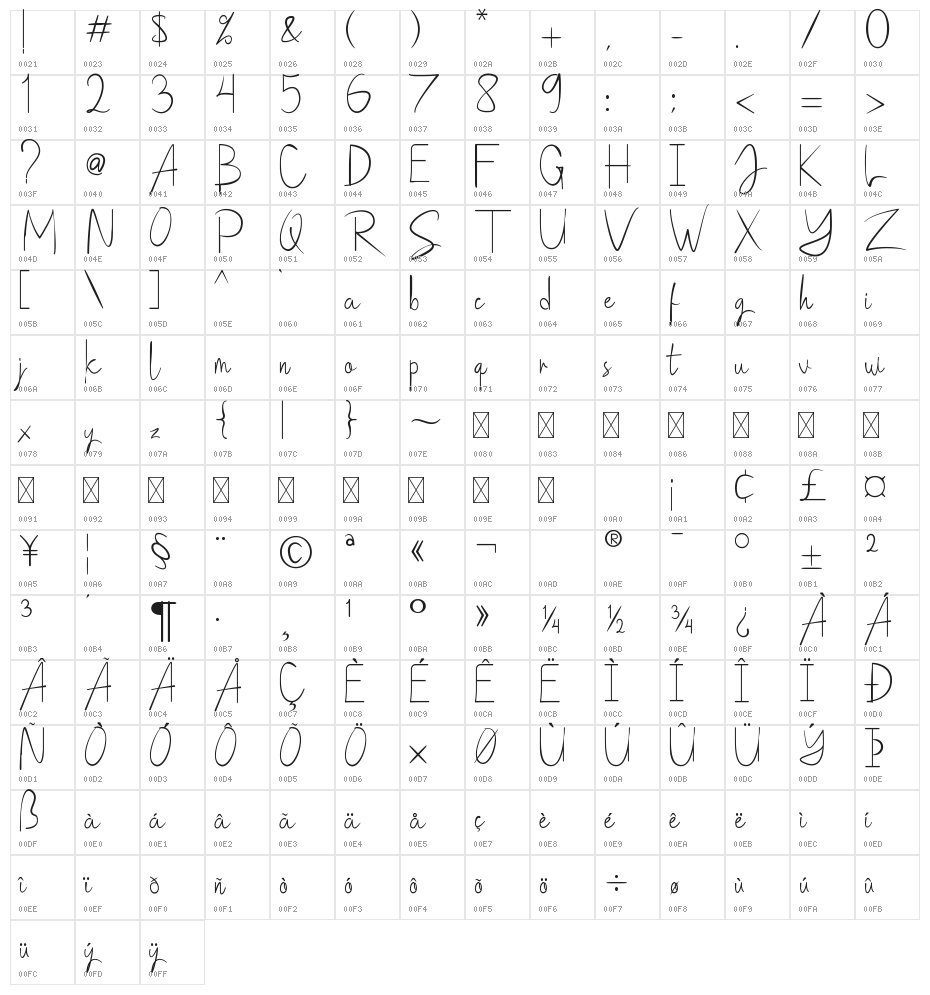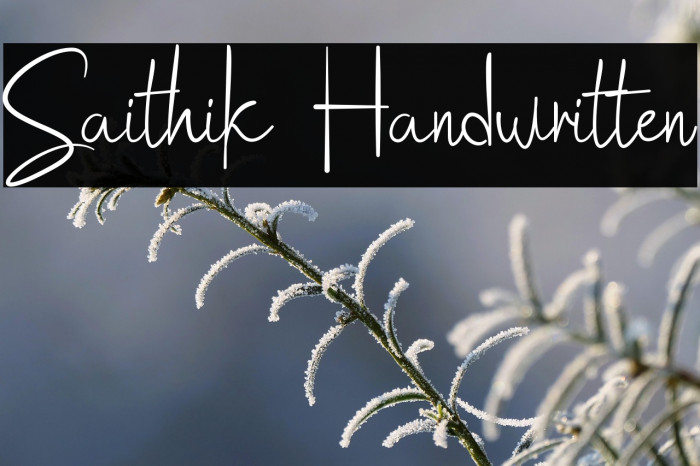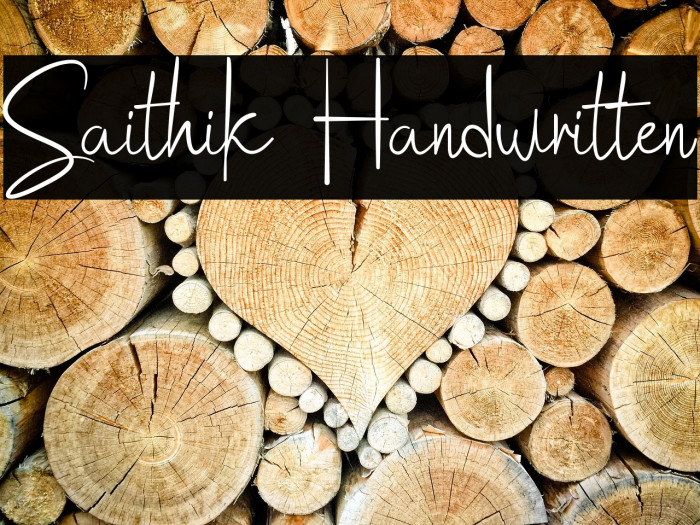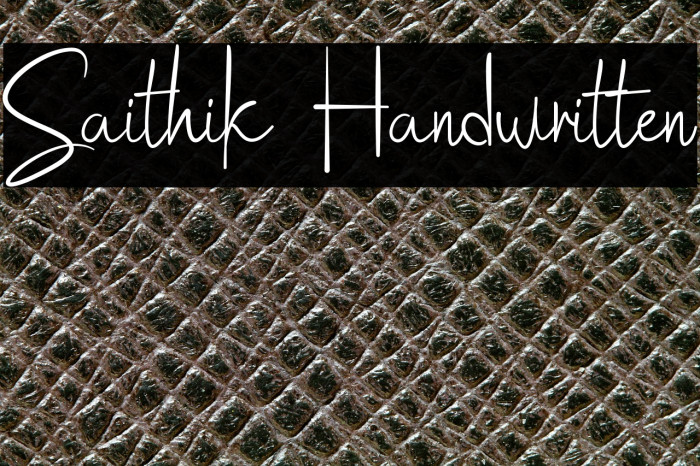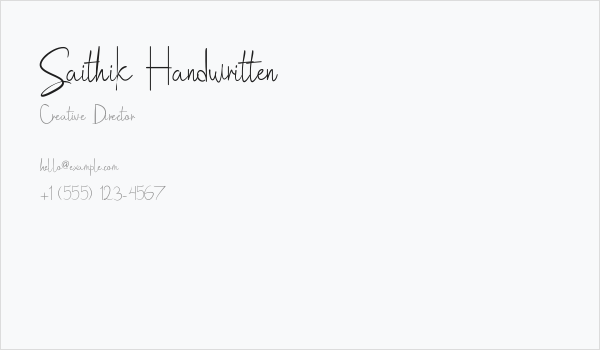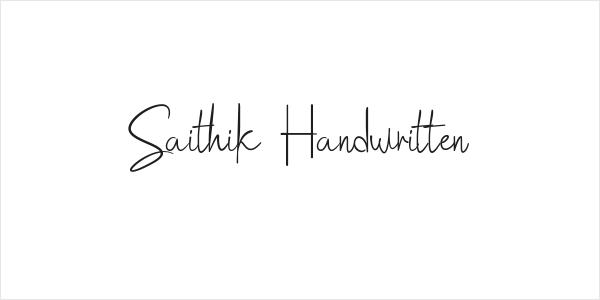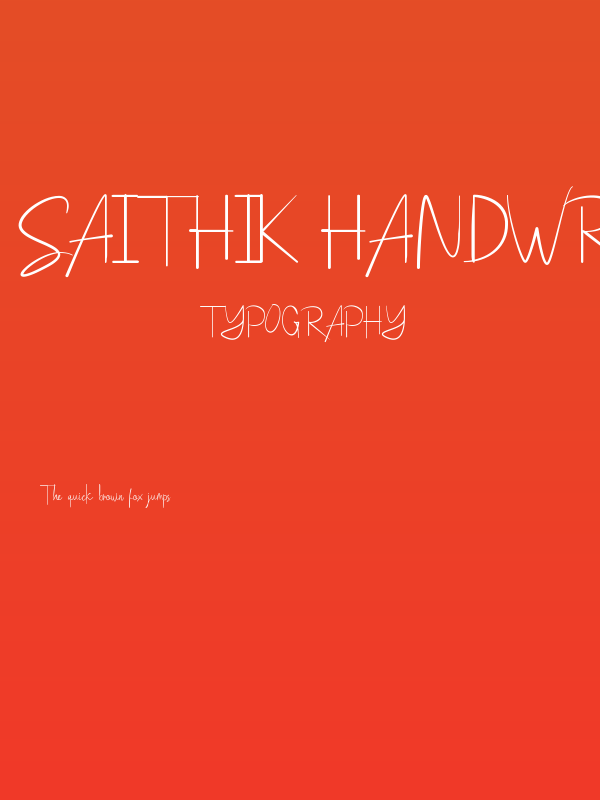
Saithik Handwritten Font
Saithik Handwritten Description
This font exudes a playful and casual handwritten style, characterized by its fluid and dynamic strokes. The uppercase letters are tall and slender, with a slight tilt that adds a sense of movement and spontaneity. The lowercase letters maintain a consistent flow, with some characters featuring unique loops and curves that enhance the handwritten aesthetic. Numbers are clear and legible, matching the overall style with their rounded forms. Special characters are creatively integrated, maintaining the font's cohesive look. The overall impression is one of creativity and informality, making it suitable for projects that require a personal touch.
Overall StyleCasual, Playful
Use CaseLogos, Invitations, Greeting Cards
Proposed ProjectsIdeal for greeting cards, invitations, personal branding, and creative projects that benefit from a personal, informal touch.